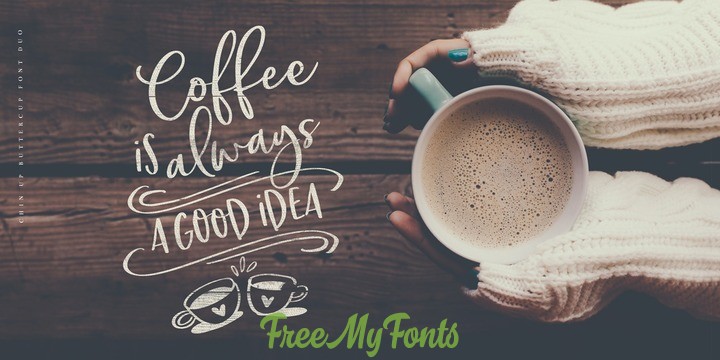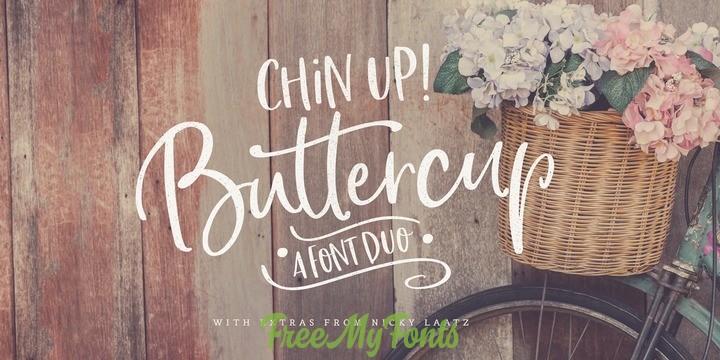
About this font family
Introducing Chin up! Buttercup! A Perfectly Playful new font pair with a handy doodle font consisting of 40 complimentary Illustrations.
Consisting of a Script, a Cute Sans Serif and a handy doodles font, Chin Up Buttercup are perfect companions for designing greeting cards, quotes, typographic designs, wall art, branding, packaging, websites, photo & photography overlays, signs, window art, scrapbooking, tags and so much more.
The script has an alternate upper and lowercase character set, as well as a large selection of Standard Ligatures – allowing you to make your design truly unique.
Not to be left out , the ‘Cutecaps’ comes with alternate characters in the uppercase set and cute little ligatures as well.